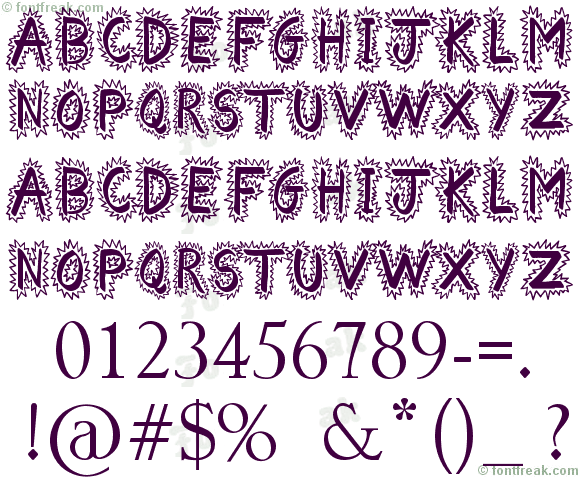
Comical Smash
About Comical Smash
The Comical Smash font, designed by Jonathan S. Harris, is a dynamic and playful display typeface that falls into the decorative category. Released in 2012 as freeware, this font showcases a unique style characterized by exaggerated, jagged edges and a bouncy rhythm that gives it a lively and humorous appeal. The stroke weight is bold and consistent, with minimal contrast, allowing the typeface to stand out prominently in various contexts. The spacing between letters is generous, enhancing its legibility while maintaining a fun, energetic vibe.
Ideal for a wide range of creative projects, the Comical Smash font is perfect for children's book covers, comic strips, and playful branding materials. It can also be effectively used in promotional posters for events such as fun fairs or family-oriented gatherings, where a lighthearted tone is desired. Small business owners, graphic designers, and content creators looking to add a touch of whimsy to their work will find this font especially appealing.
The target audience for Comical Smash encompasses those in creative industries, including graphic designers, marketers, and even educators seeking to engage younger audiences. Its exuberant style is particularly suited for projects that aim to evoke joy and excitement.
What sets the Comical Smash font apart is its distinctive character and versatility. It captures attention with its unique design, making it an excellent choice for projects that require a fun and memorable touch. By opting for this typeface, you can easily convey a sense of playfulness and creativity, making it an invaluable addition to any designer's toolkit. Don’t miss the opportunity to explore the Comical Smash font free download and elevate your design projects with its unique flair.